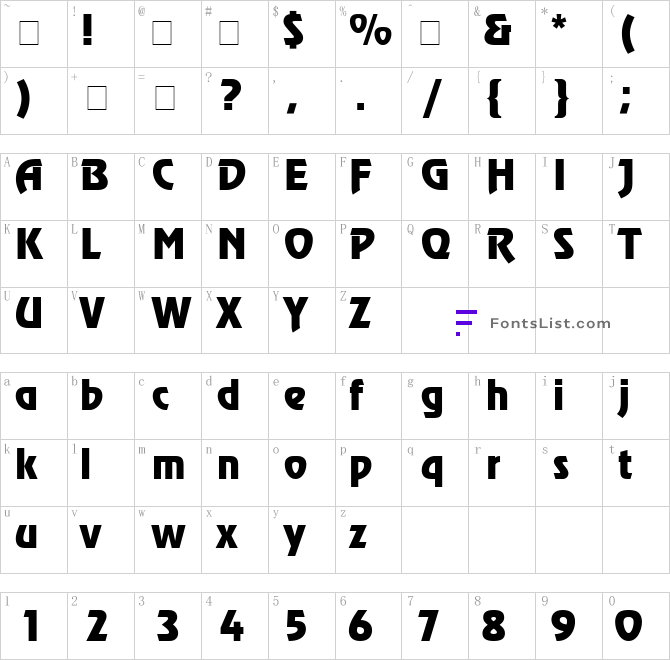
- Font Name:AGRevueCyr
AGRevueCyr-Medium.ttf is a very beautiful artistic font, AGRevueCyr-Medium.ttf is widely used in the design and printing of various books and pictures,AGRevueCyr-Medium.ttf has a strong visual impact,AGRevueCyr-Medium.ttf is a commonly used font in newspapers, magazines and books, and is used in posters, e-commerce Poster design, store design, logo design, font design and other fields.AGRevueCyr-Medium.